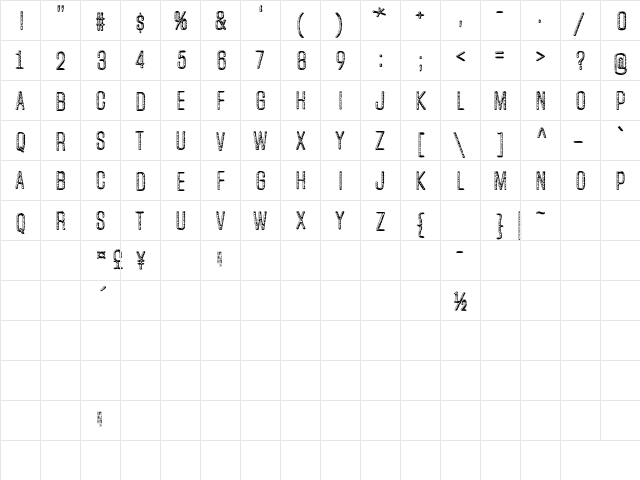
Unfinished Sympathy Regular
Design Context for Unfinished Sympathy Typeface
Unfinished Sympathy takes a measured approach to typography — its balanced proportions and neutral character make it a reliable workhorse for both digital and print work.